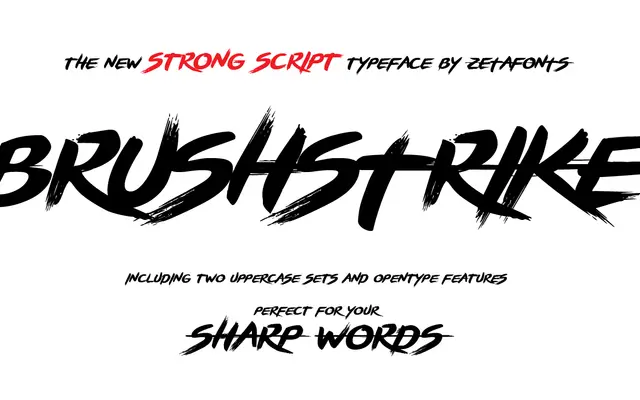
Brushstrike
Zetafonts · Francesco Canovaro · 2015
An all-caps brush display typeface by Francesco Canovaro, featuring a strikethrough alternate set aimed at logo design and word highlighting.
Designed by Francesco Canovaro and released in 2015, Brushstrike carries no lowercase characters, instead doubling the uppercase with a strikethrough alternate set accessible via OpenType features. Two weights, Light and Regular, share a consistent gestural brush aesthetic; the lighter weight is intended for use reversed out of dark backgrounds to create light effects. Coverage extends to 202 Latin-script languages across 422 glyphs.
An all-caps gestural brush typeface with a strikethrough alternate set, designed explicitly for logo design and display use rather than running text.